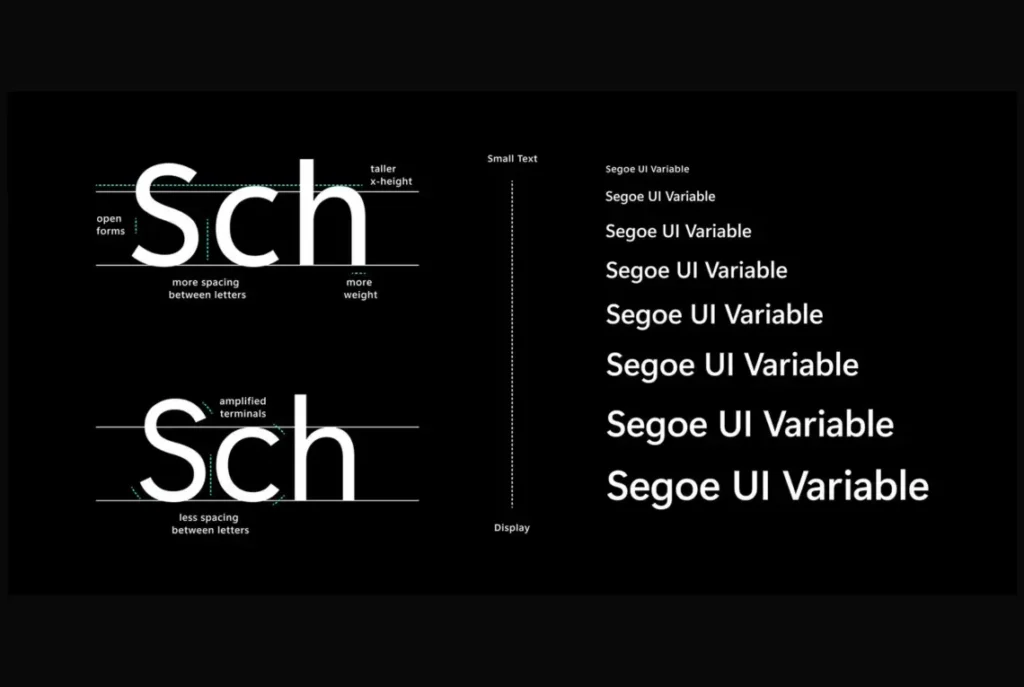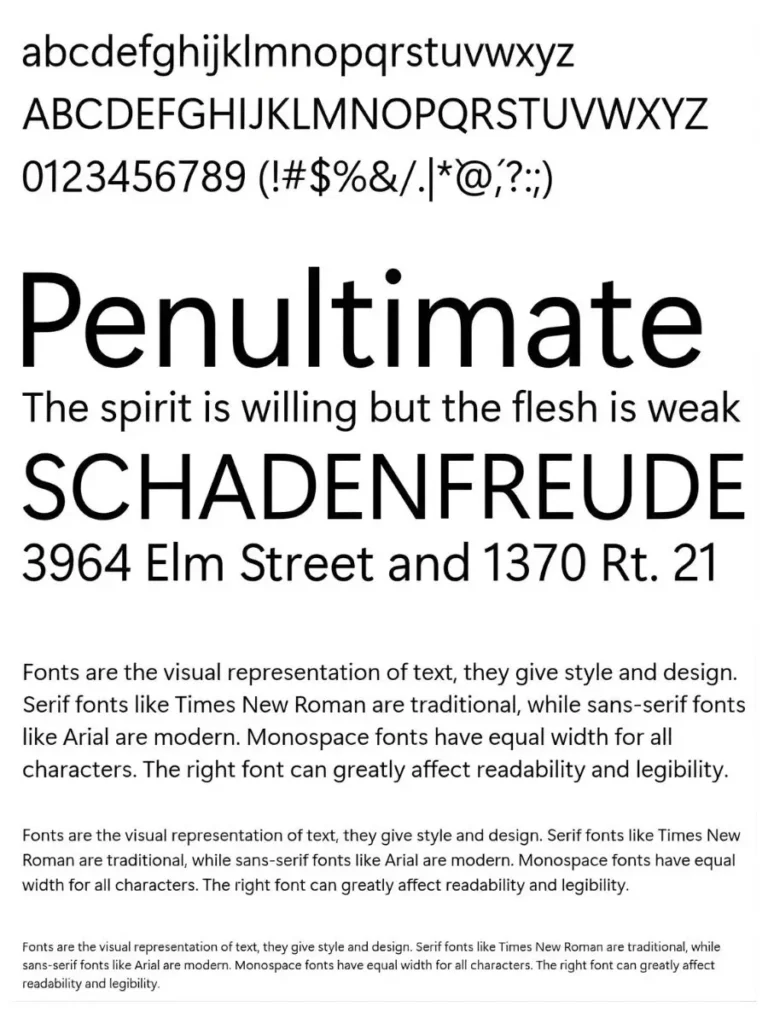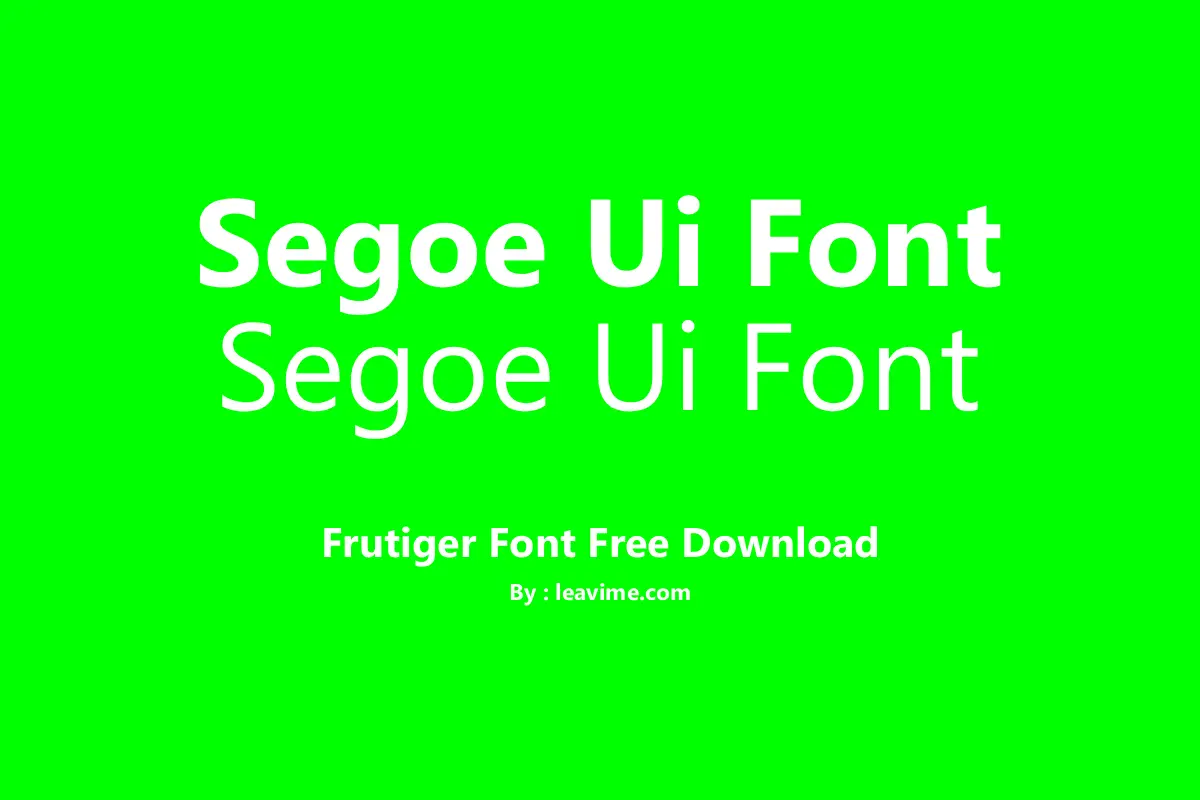
Segoe UI Font is a clean and modern sans serif font widely recognized for its clarity and readability across digital interfaces. As one of Microsoft’s most iconic typefaces, it has become a standard choice for user interfaces, branding, and product visuals. With its balanced shapes and smooth strokes, Segoe UI Font and the broader segoe font family deliver a professional and highly legible design experience.
Known as a trademark of Microsoft, Segoe has been used extensively across the company’s platforms for both print and digital media. This family font includes multiple styles and weights, ensuring versatility for applications ranging from software interfaces to product marketing. Its presence in tools like Office 2007 and Windows applications highlights its importance in Microsoft’s visual identity.
Though closely associated with Microsoft, the Segoe typeface was originally designed by Steve Matteson under Monotype. His design emphasizes simplicity, comfort, and functional elegance, making Segoe UI Font a preferred choice for designers seeking a polished and user-friendly typographic style. As a result, the segoe font continues to be a go-to option for modern branding and digital design.